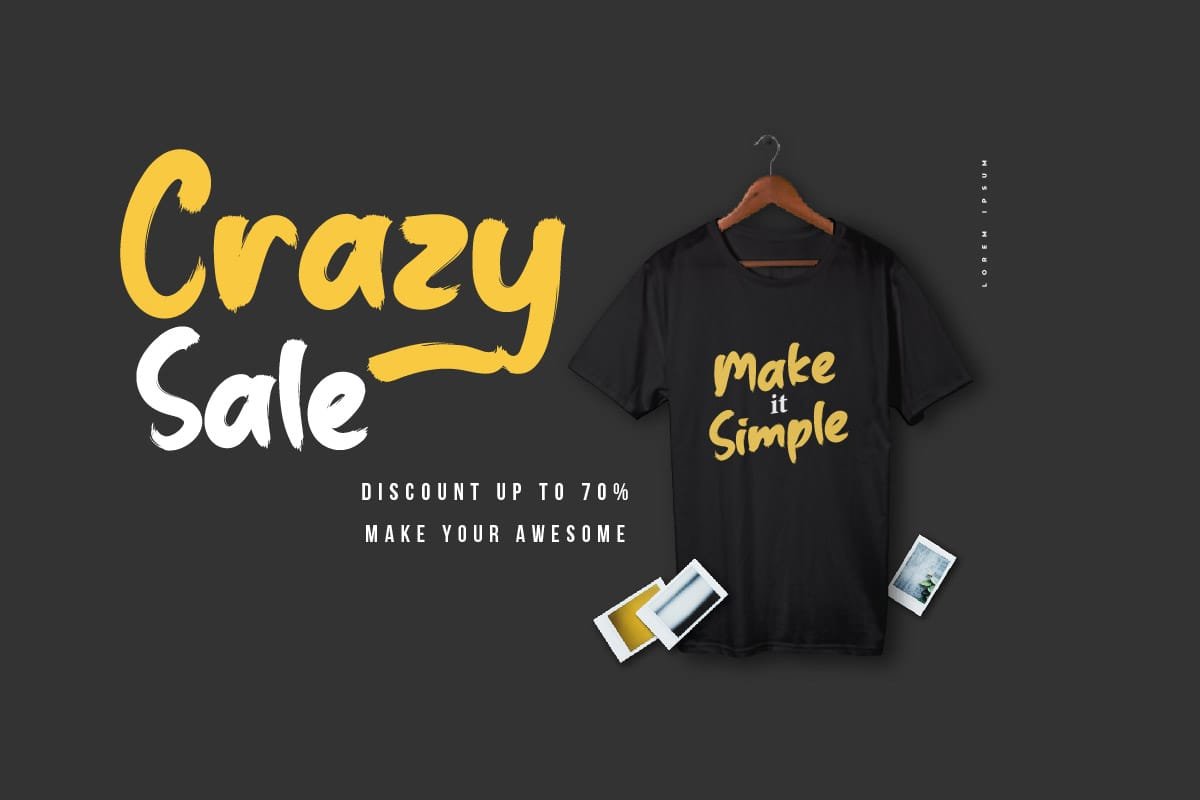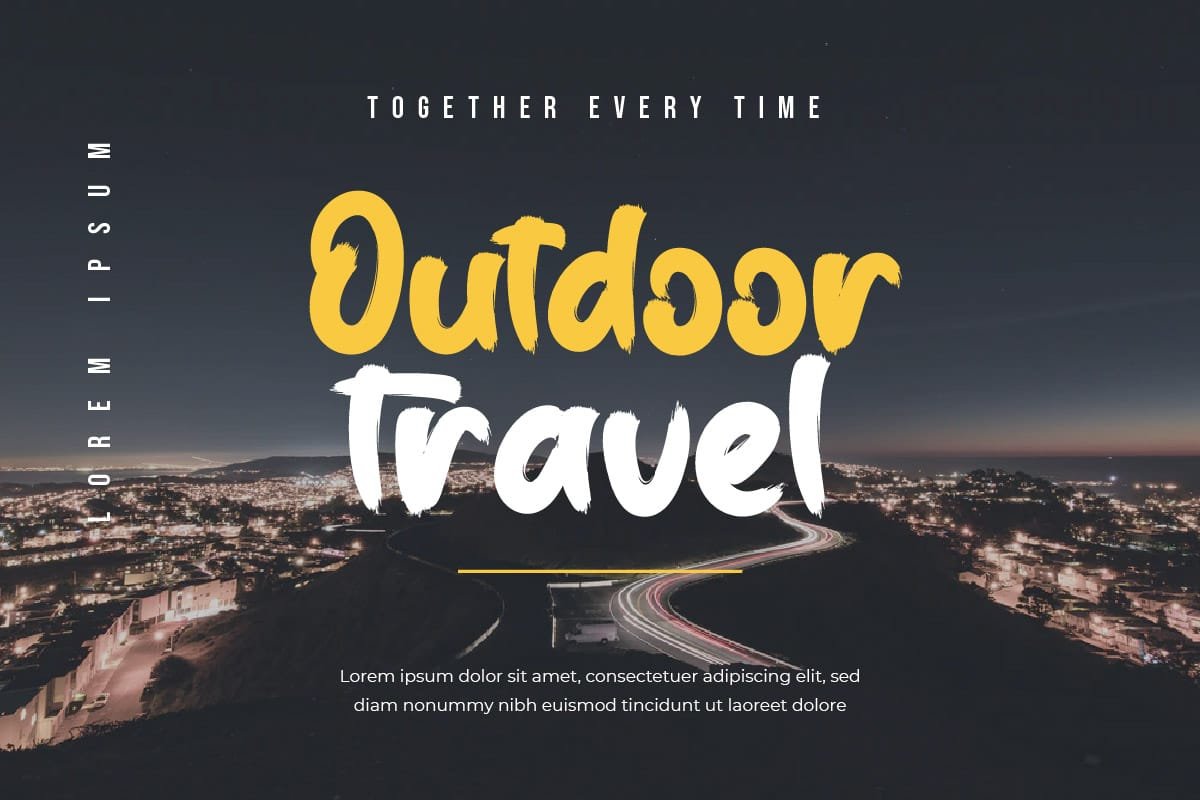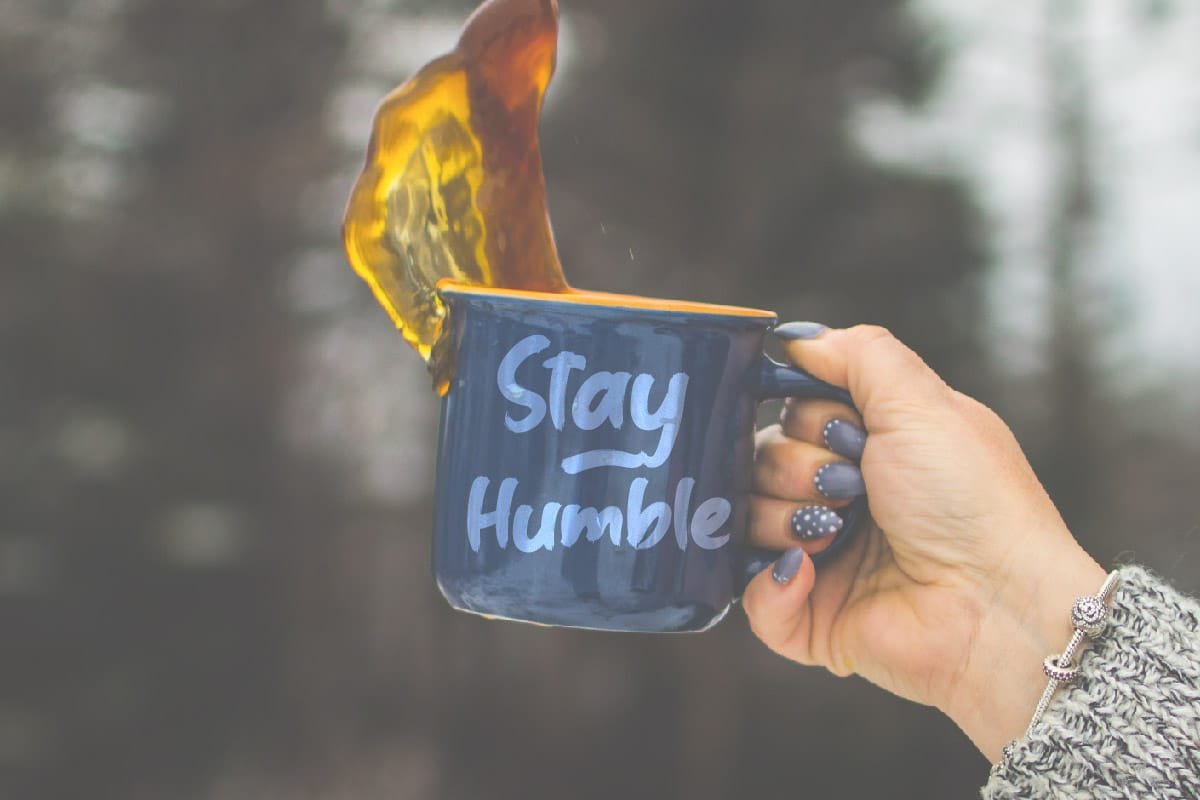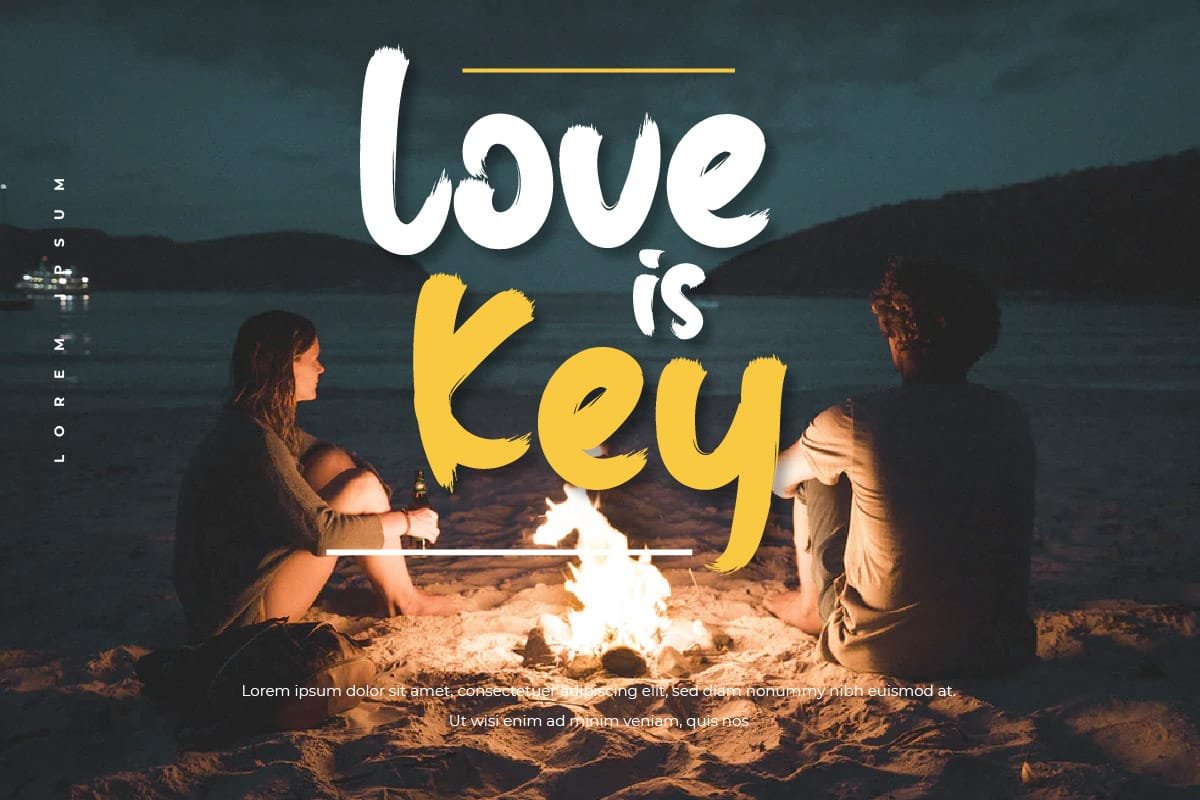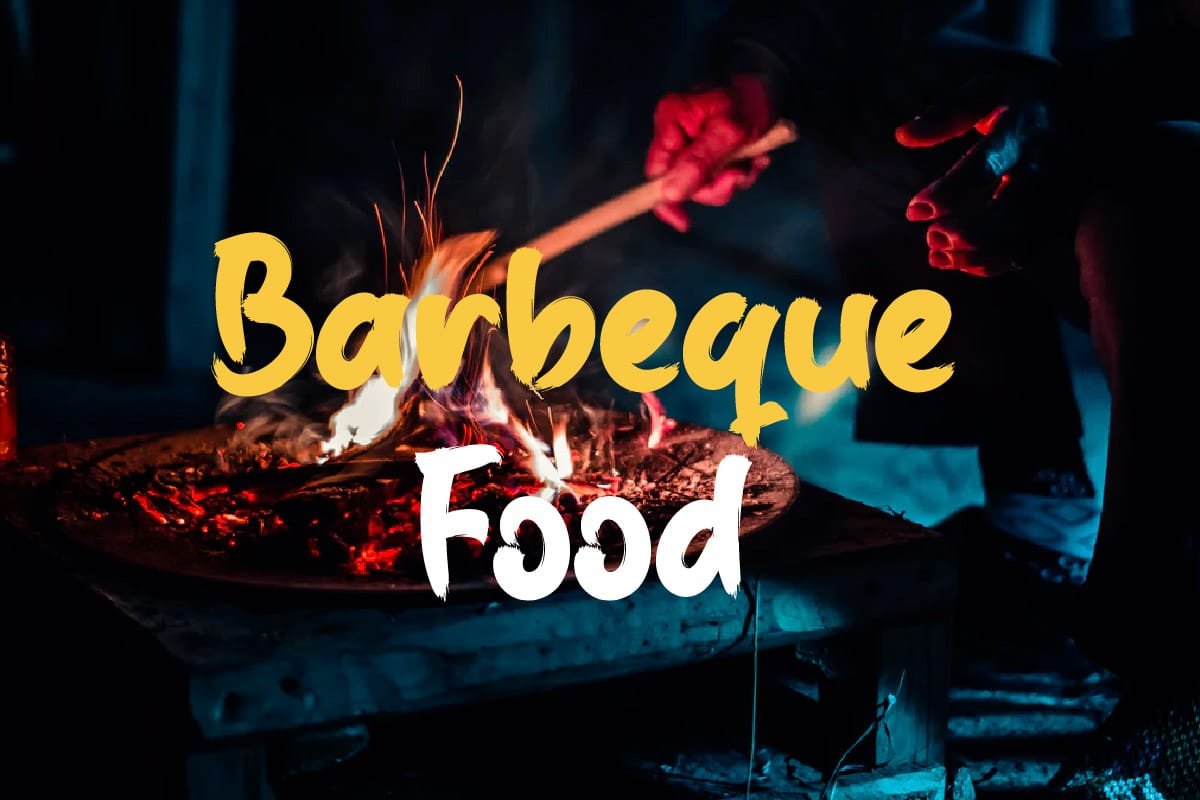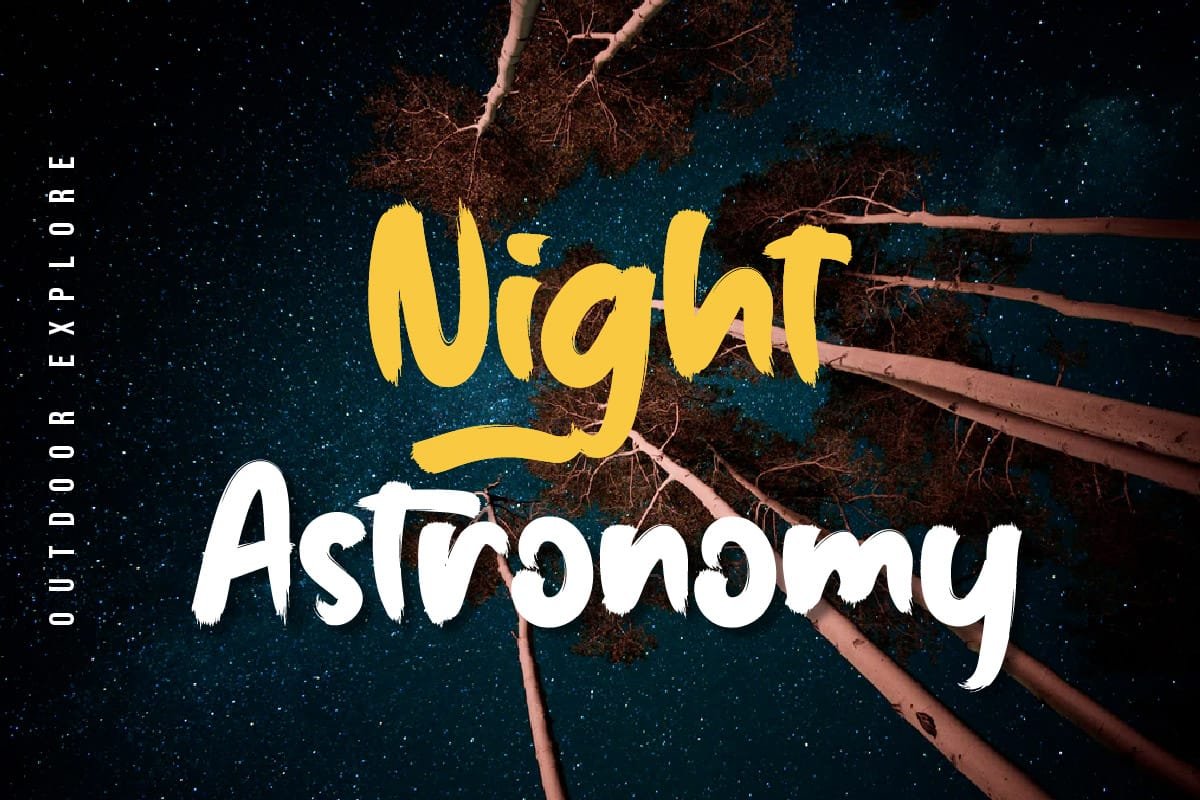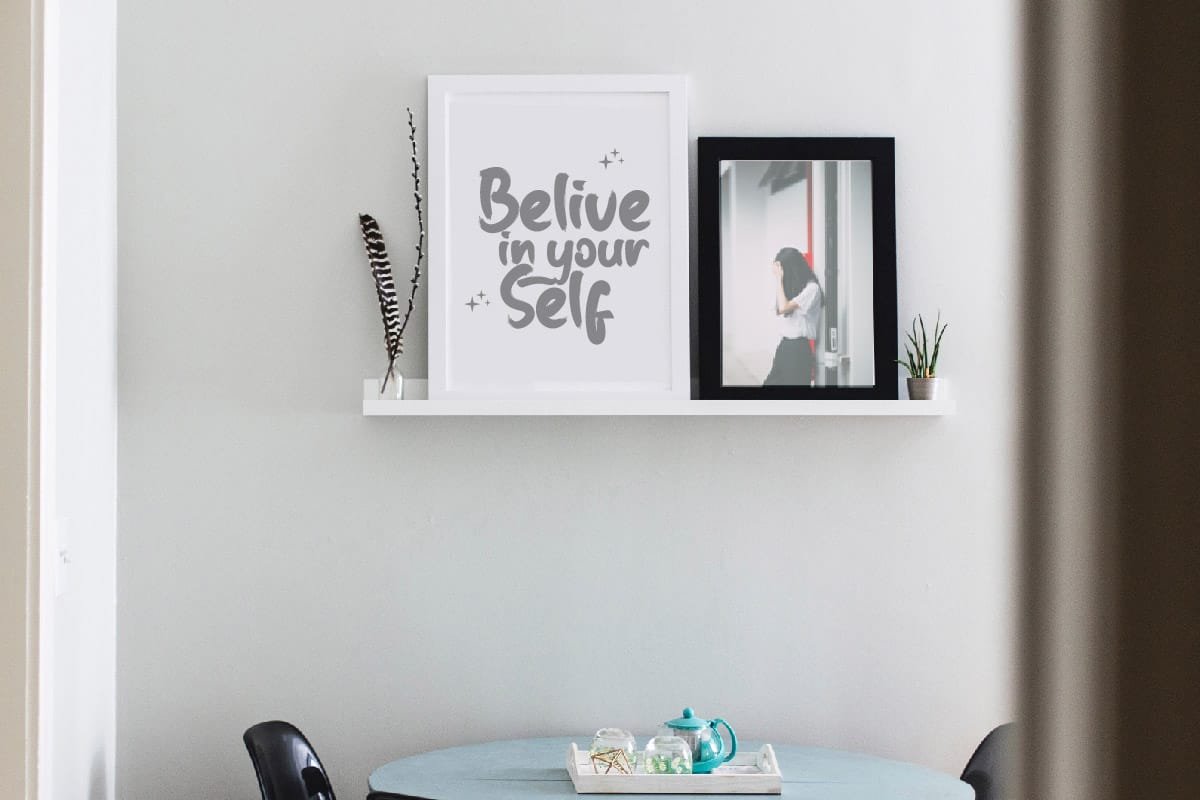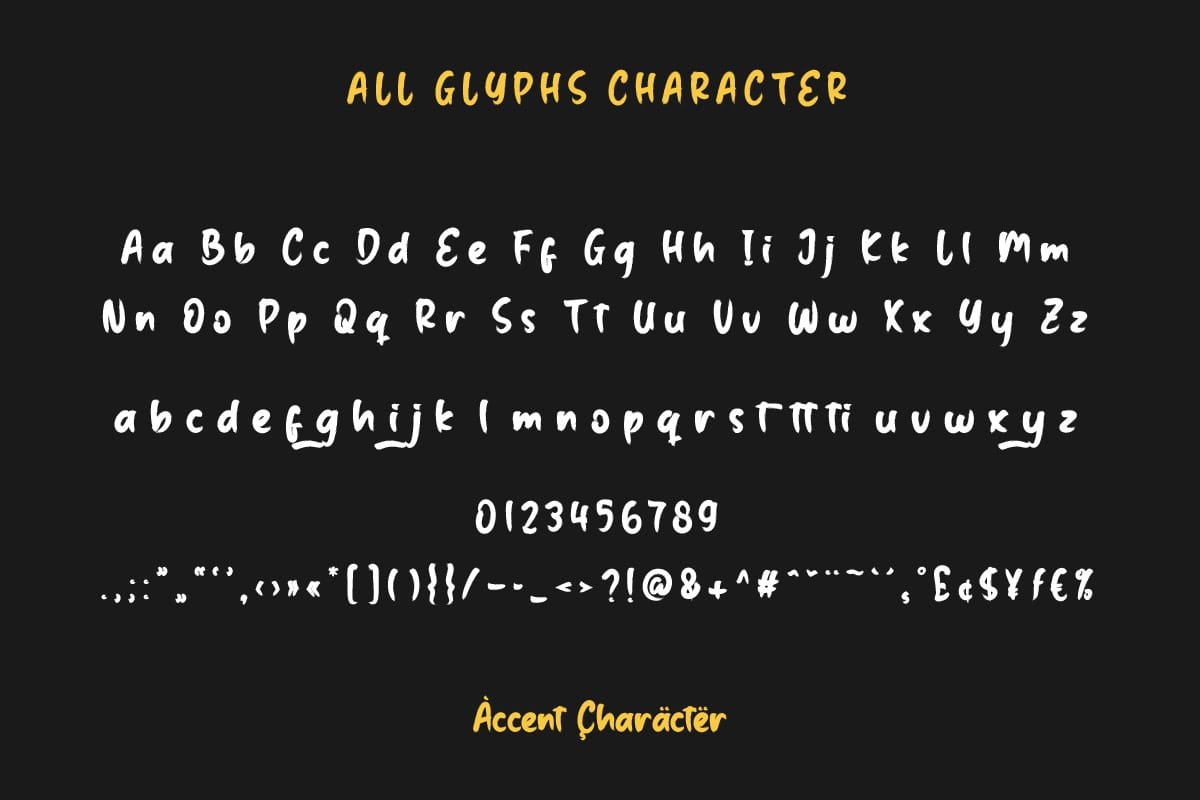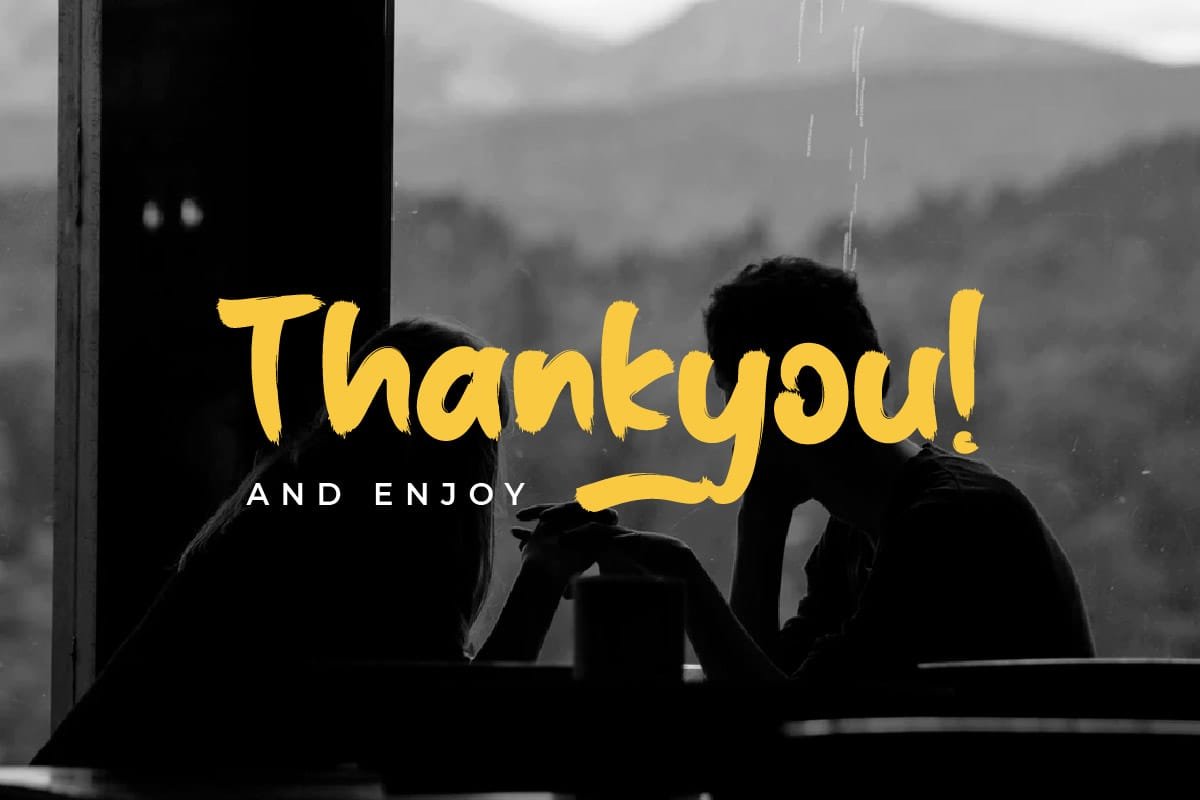
Add a splash of excitement to your designs with Salting – Brush Handwritten Font, the font that’s bursting with energy and vitality! With its lively strokes and youthful charm, Salting brings a sense of fun to every project. Whether you’re designing vibrant event posters, creating dynamic product packaging, or crafting eye-catching social media graphics, Salting is your secret weapon for making a splash. Get ready to shake things up and let your creativity run wild with Salting – the font that’s full of zest and zeal!